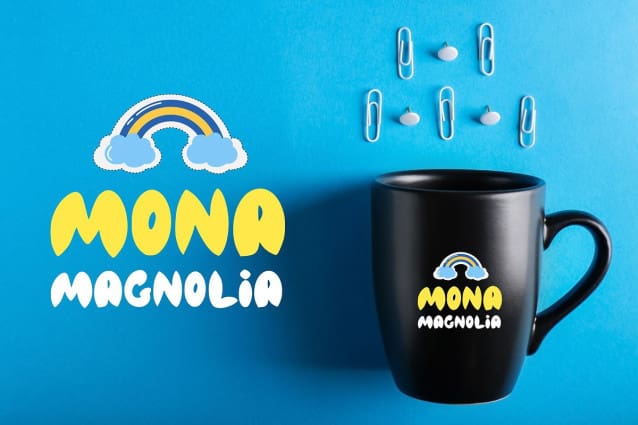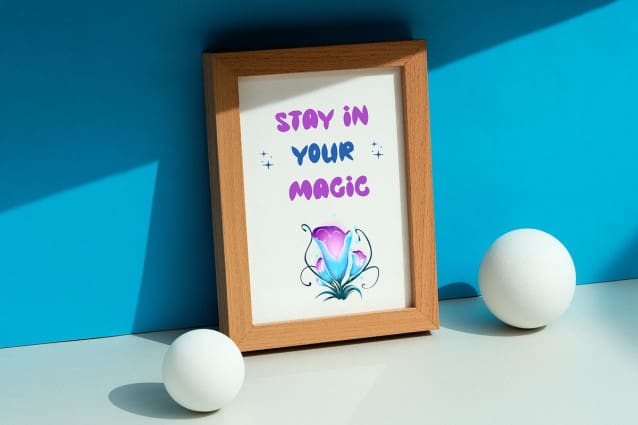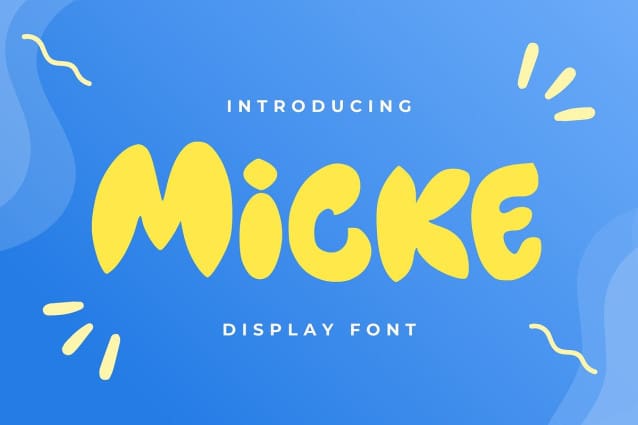
Micke Display Font
Micke Display Font is a bold display font with a modern and dynamic style. Ideal for logos, posters, and headlines, its striking design and clean lines ensure a strong visual impact in any creative project.